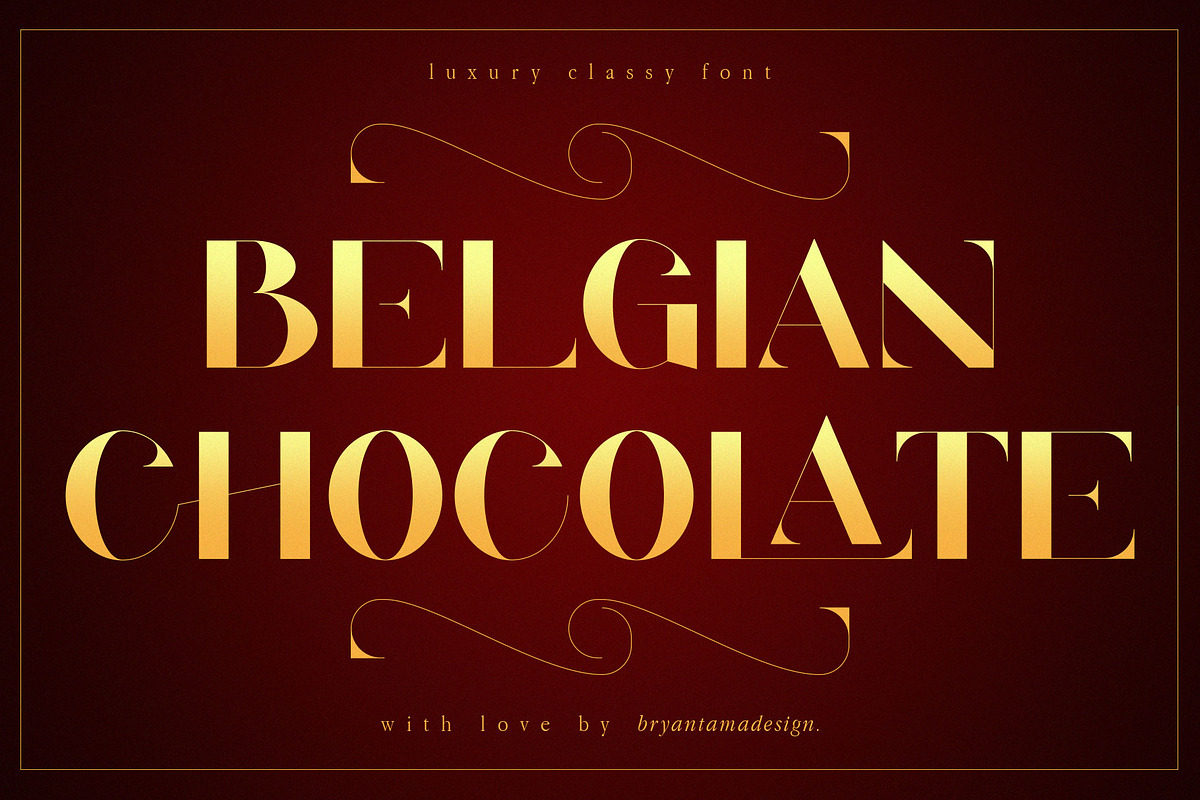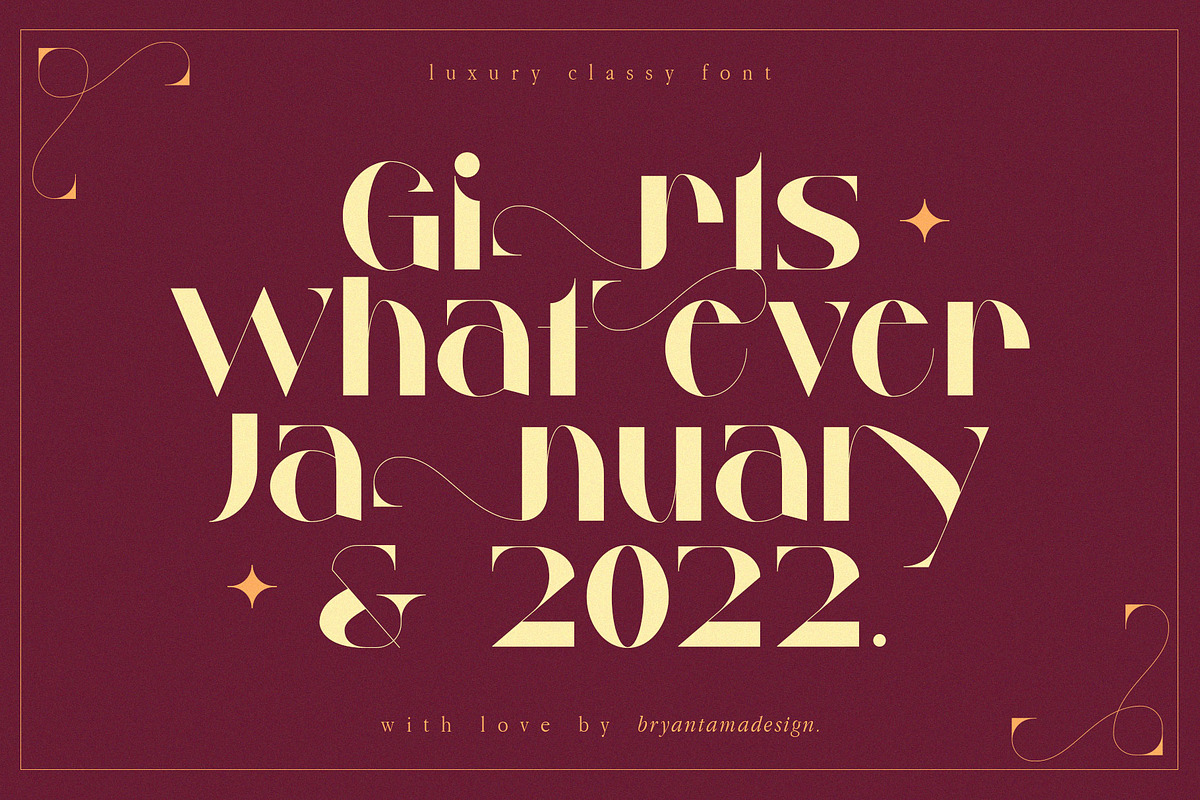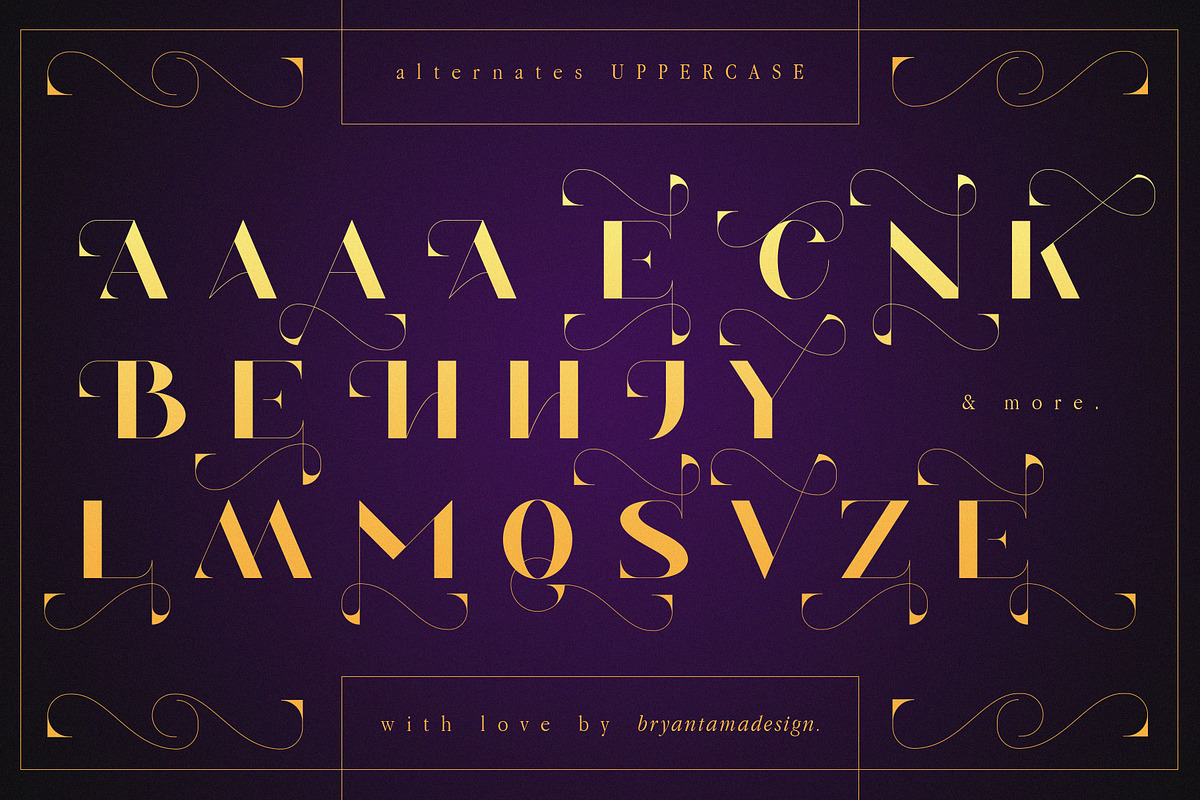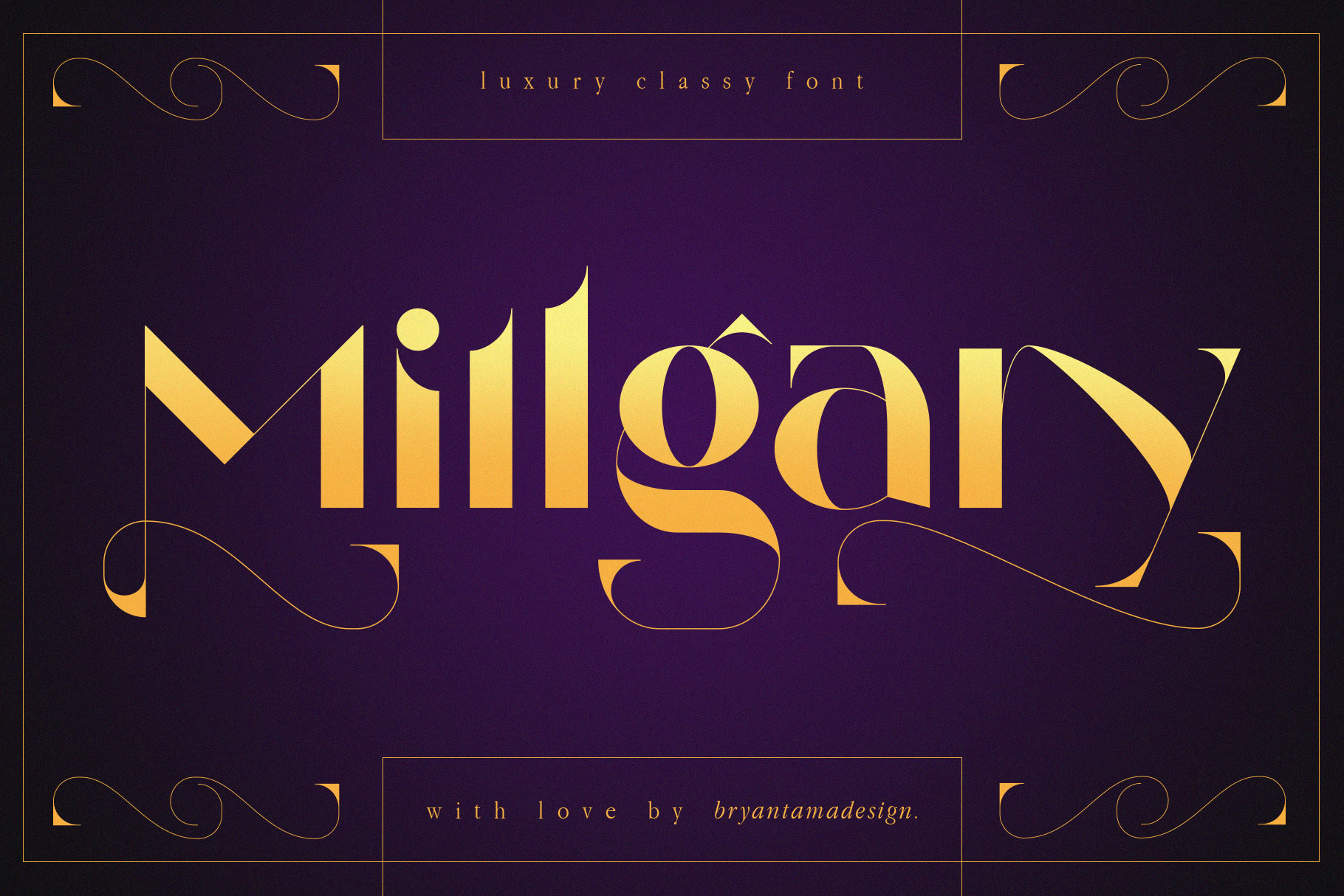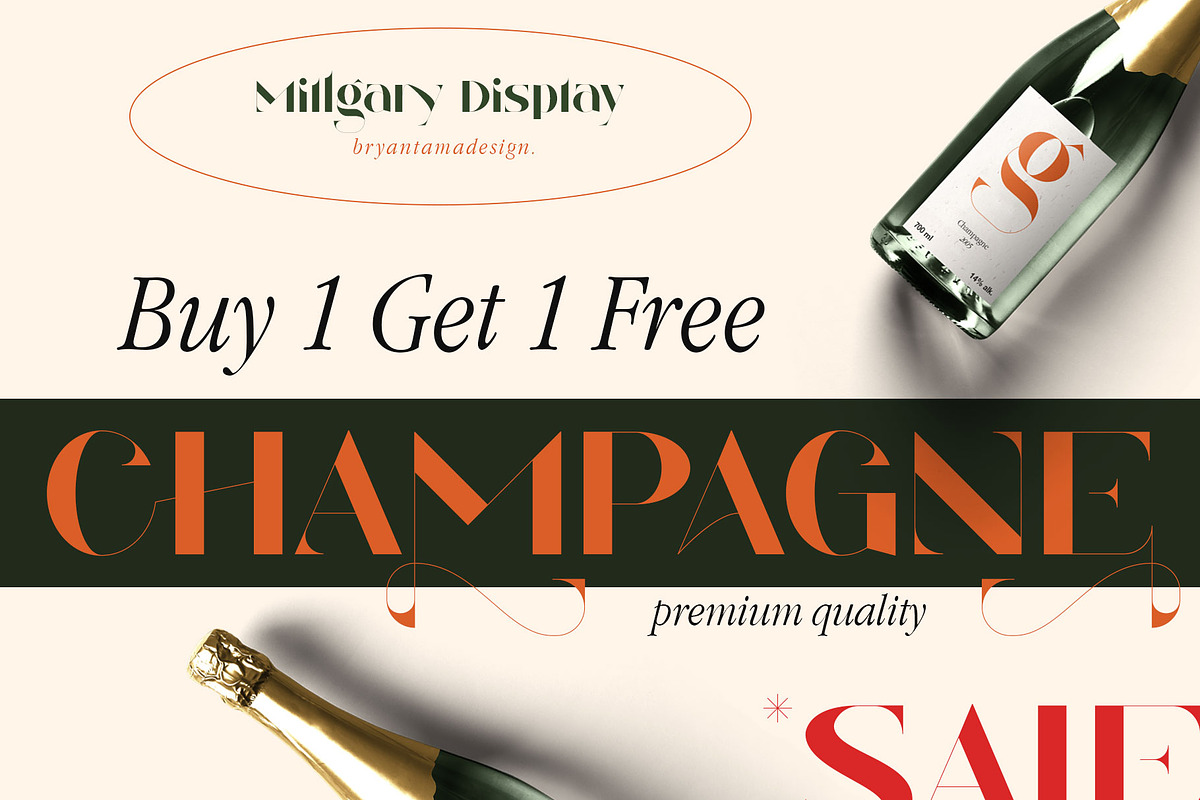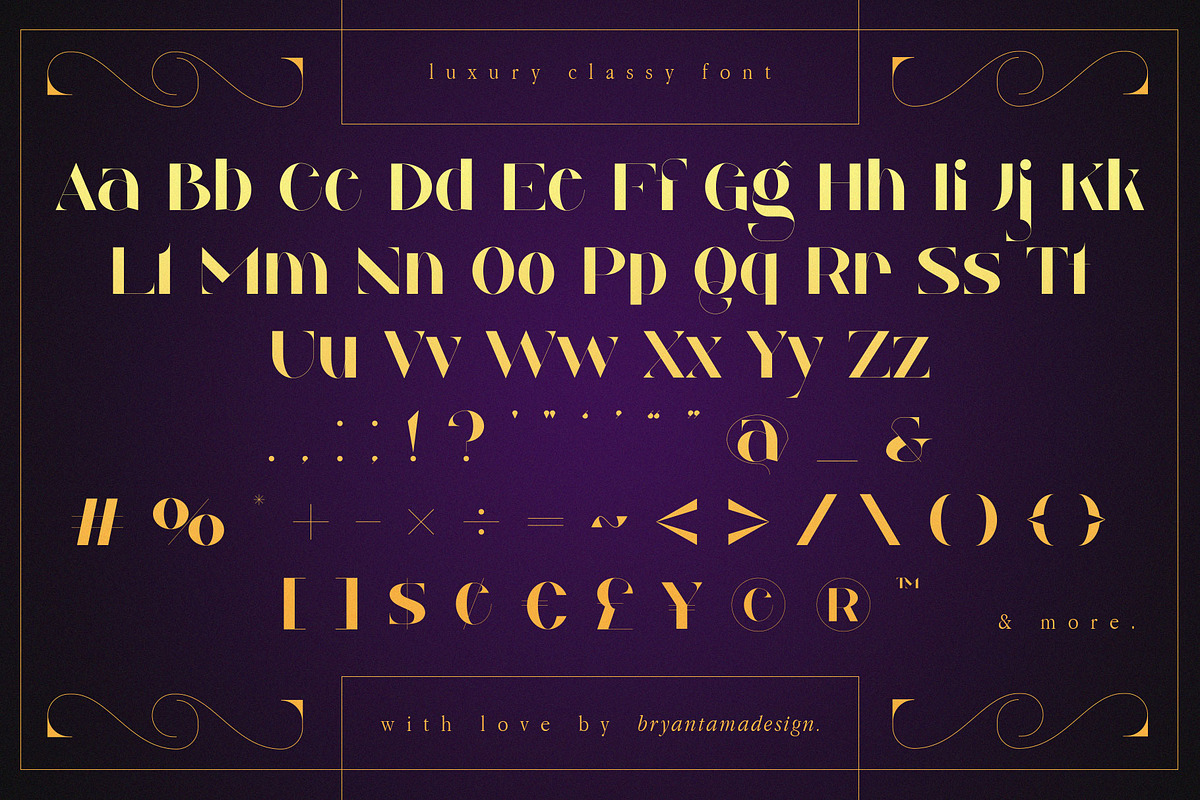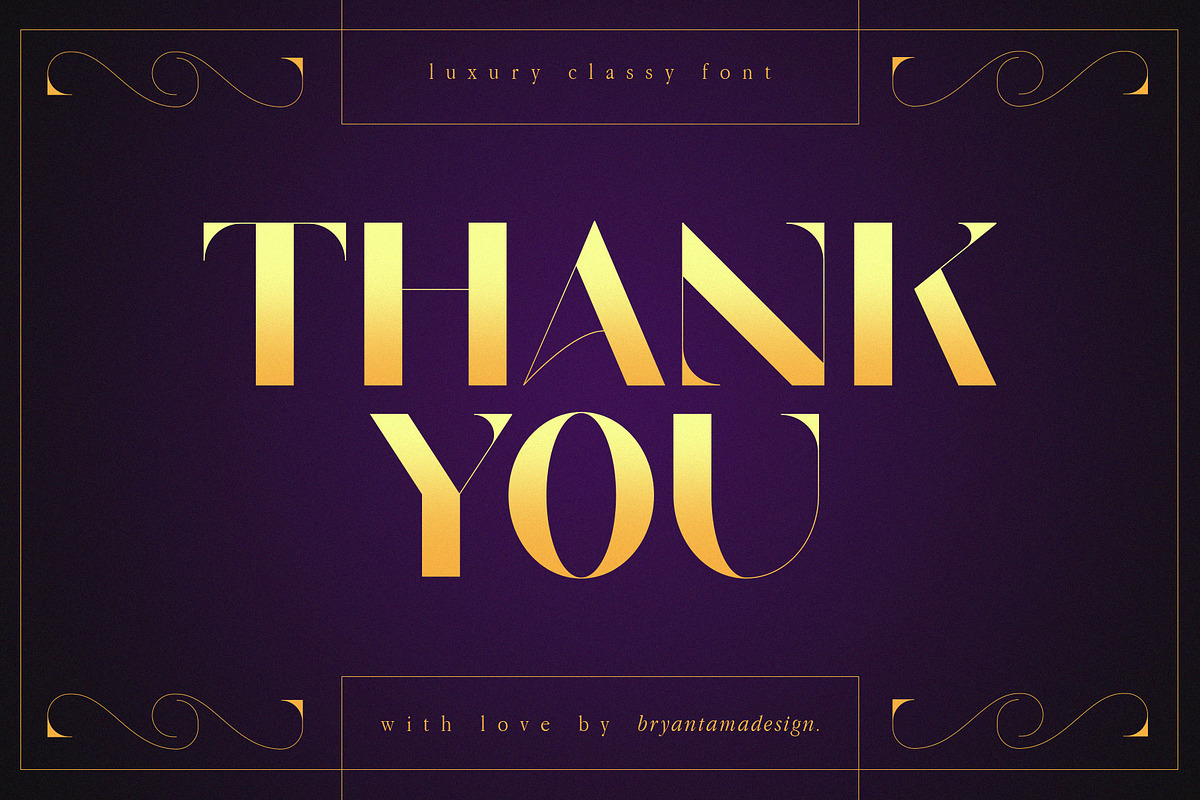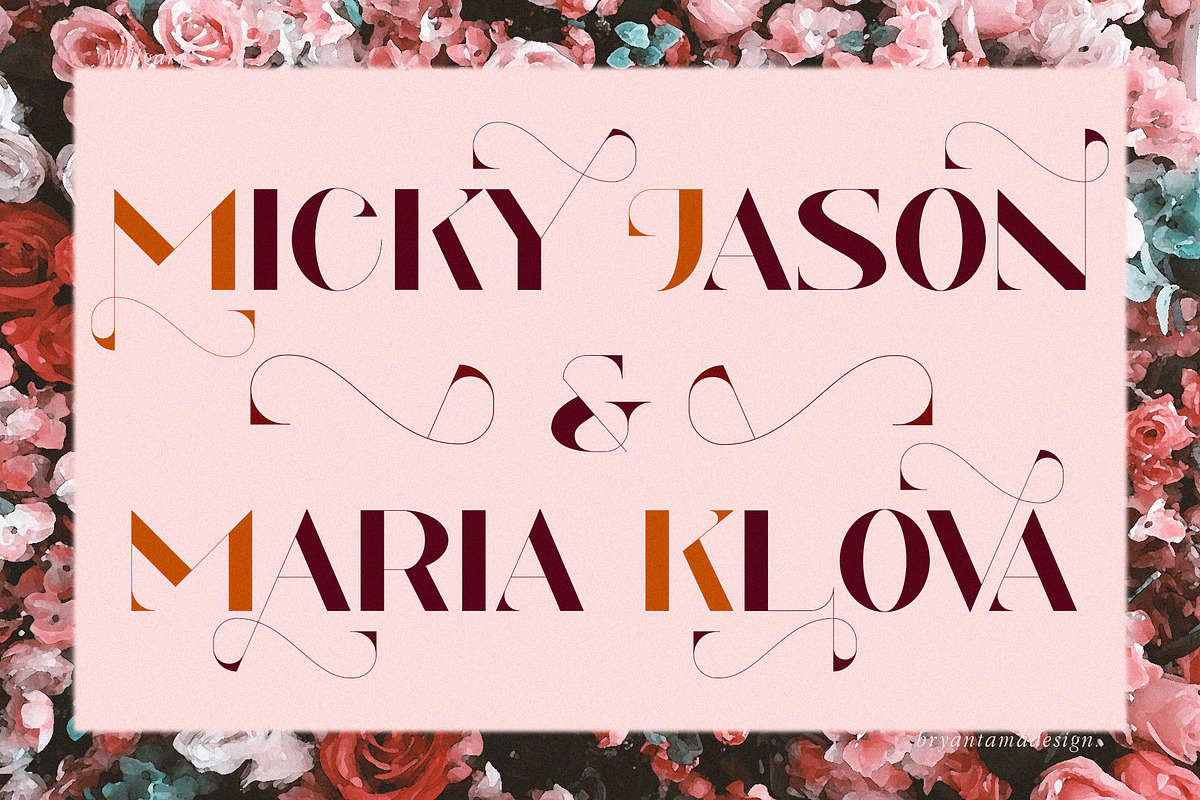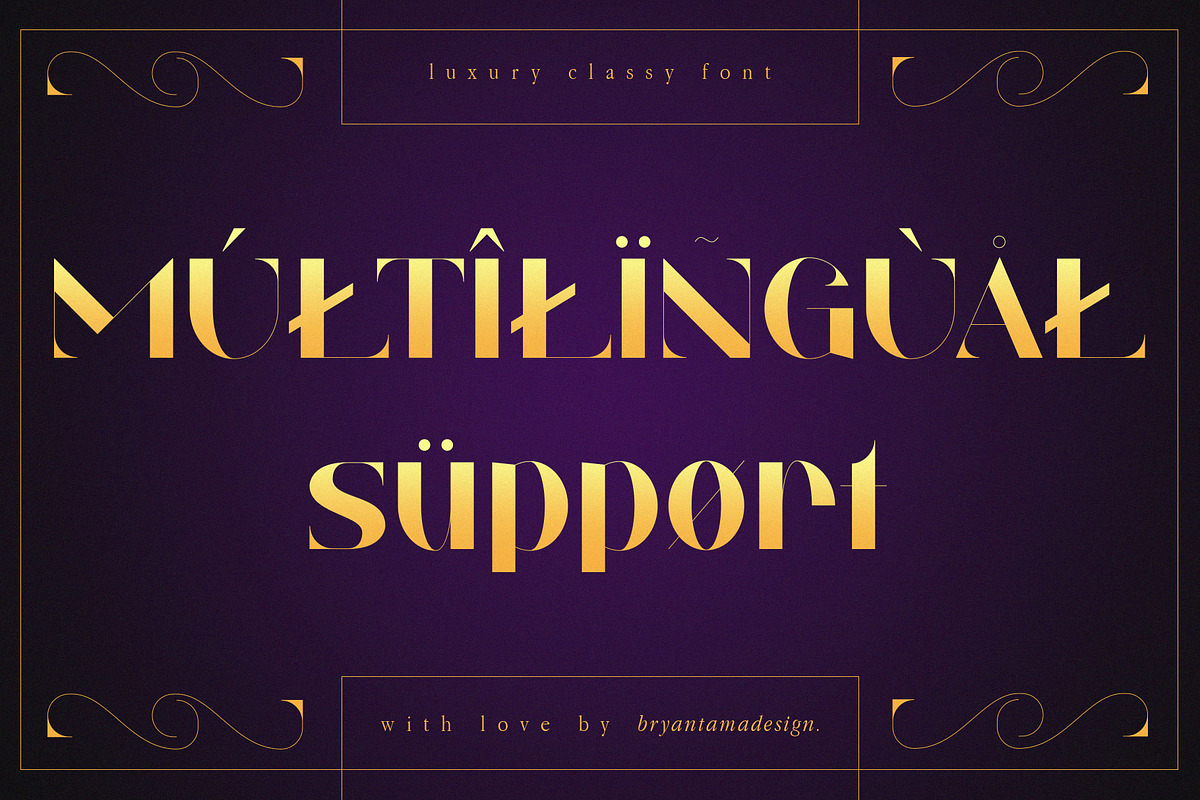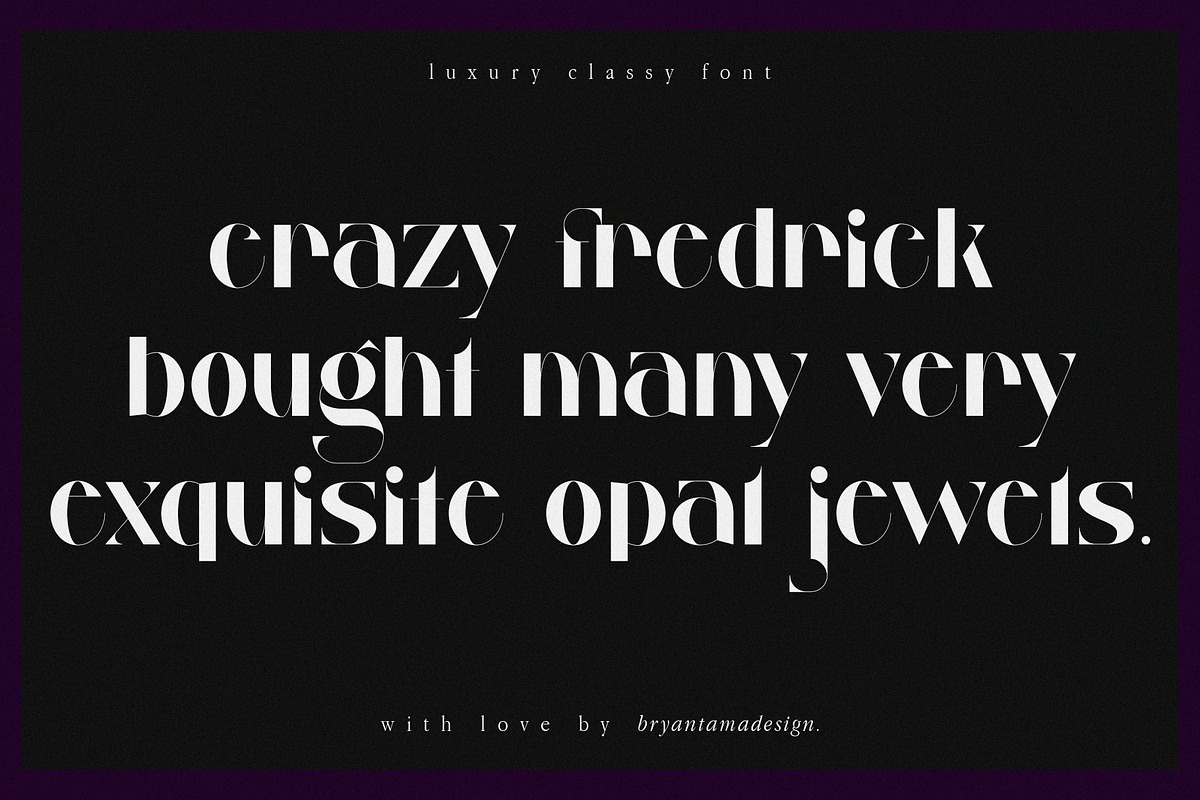
Millgary - Classy Font
Introducing Millgary. Luxury & Classy Typeface.
Inspired by historical architecture in European cities that make the font has a unique personality with ornament style & little modern touch, you can use it for branding, social media, posters, packaging, & more.
Uppercase, Lowercase, Numbers, Punctuation.
Opentype Features ( 114 Alternates & 113 Ligatures).
Multilingual Support.
Ornament Font. The ornaments are only in numbers, so if you want to use them just type 0-9 in Millgary Ornament.
Elevate your designs with Millgary Font, a sophisticated display font defined by sleek lines and refined curves. Crafted for high-end branding, editorial layouts, and luxury packaging, it delivers an effortless sense of class and exclusivity. What a Beauty!